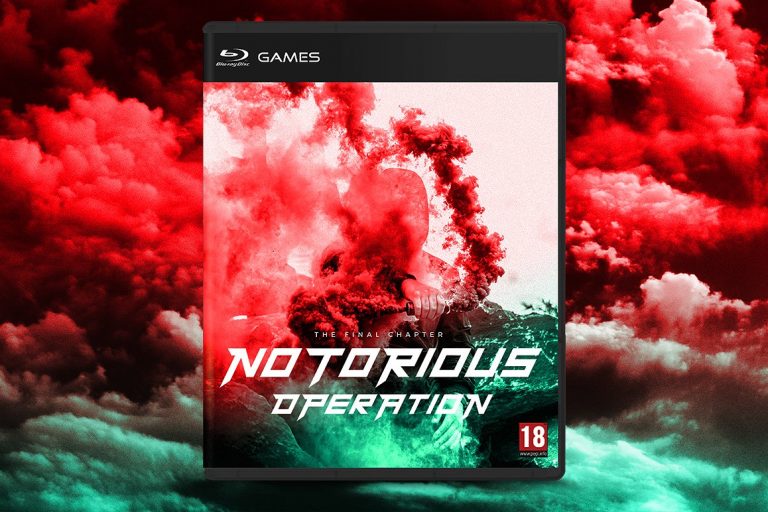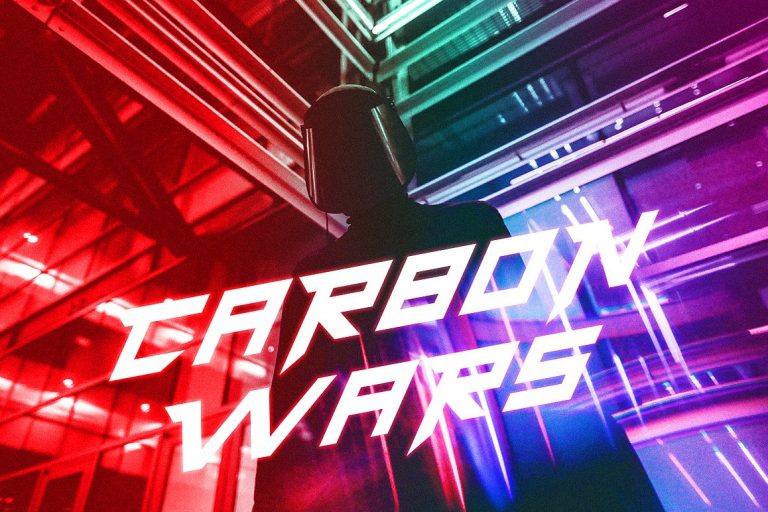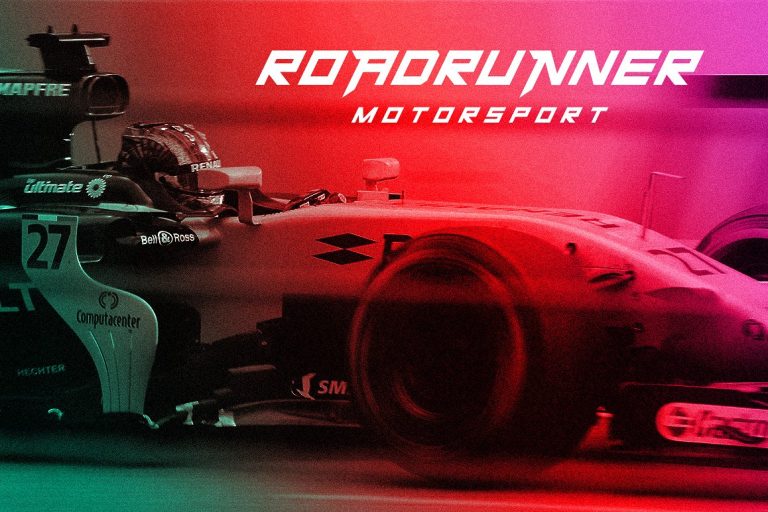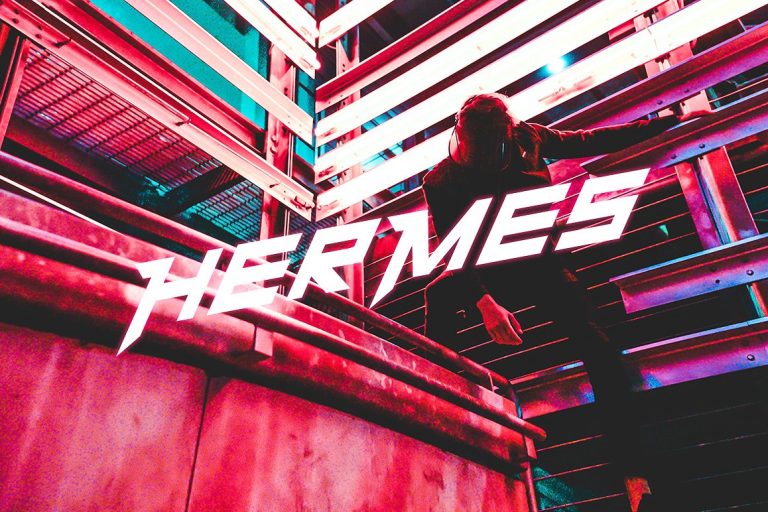
Hermes Typeface
Introducing Hermes. It is designed by LogoLabs, this is a premium font, are sold on creativemarket, but it was great, it is free today for download. Hermes is one of a kind, it’s POWERFUL, FUTURISTIC, and SHARP. It brings you back to that 80s ambiance and also to that futuristic world that you have dreamt of. Hermes is really fit for retro, futuristic, automotive, and gaming themed designs. Just look how it performs on the preview that I have provided, you will see its capabilities. But it will also work well with other themes.